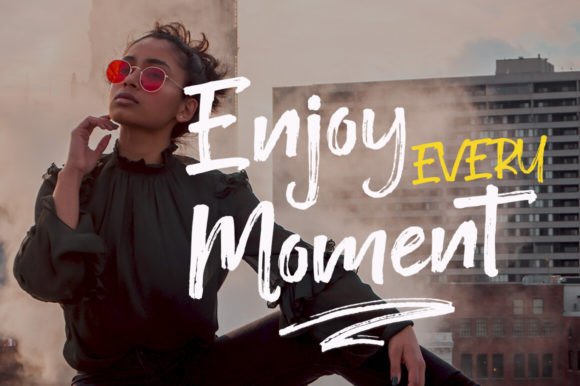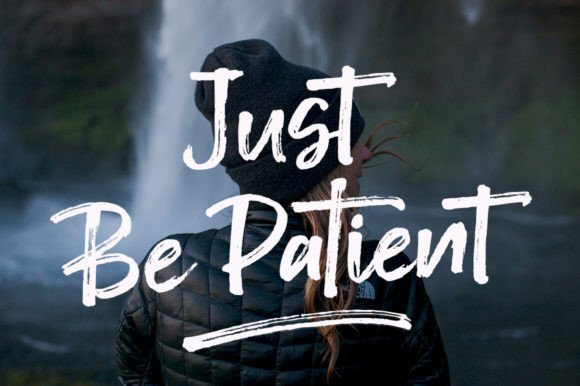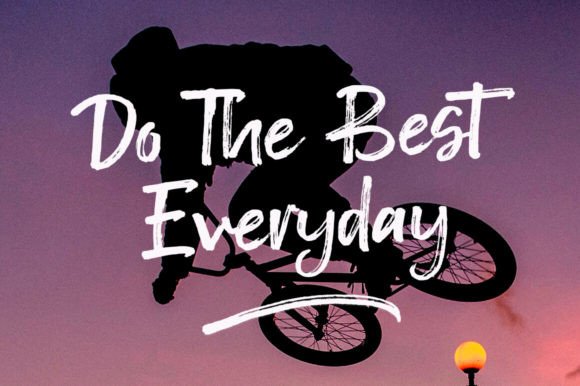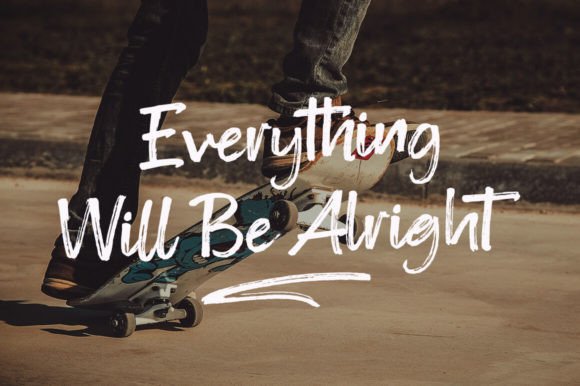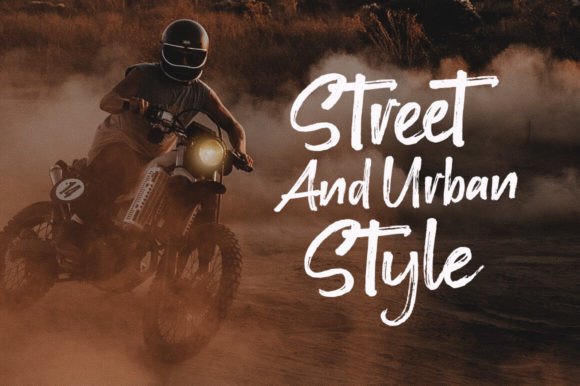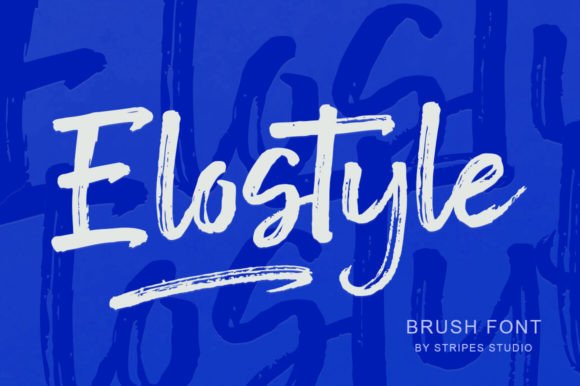
Discover the Charm of Elostyle Font: A Super Casual Hand Brushed Script
Are you a designer or crafter looking for a unique and eye-catching font to elevate your creative projects? Look no further than Elostyle Font, a super casual hand brushed script that is sure to capture the attention of your audience. With its detailed brush stroke texture, Elostyle Font is perfect for adding a personal touch to a wide range of applications, from titles and signatures to logos and wedding invitations.
What is Elostyle Font?
Elostyle Font is a carefully crafted hand brushed script that exudes a sense of casual elegance. Its super casual style makes it perfect for designers and crafters who want to add a touch of personality to their work. The font features a detailed brush stroke texture that gives it a unique, hand-crafted feel. This texture adds a level of depth and visual interest to your text, making it stand out from more traditional fonts.
Uses for Elostyle Font
One of the best things about Elostyle Font is its versatility. It can be used for a wide range of purposes, including:
- Titles and headings: Add a touch of elegance to your titles and headings with Elostyle Font’s casual, hand-brushed style.
- Signatures: Make your signatures stand out with Elostyle Font’s unique texture and style.
- Letterheads: Add a personal touch to your letterheads with this charming hand brushed script.
- Signage: Elostyle Font is perfect for signage, whether you’re creating a sign for a business, event, or personal project.
- Labels: Add a touch of personality to your labels with Elostyle Font’s casual, hand-brushed style.
- Newsletters: Make your newsletters stand out with Elostyle Font’s unique texture and style.
- Posters: Create eye-catching posters with Elostyle Font’s bold, hand-brushed style.
- Logos: Elostyle Font is perfect for creating unique and memorable logos for businesses or personal projects.
- Correspondence: Add a touch of elegance to your correspondence with Elostyle Font’s casual, hand-brushed style.
- Wedding invitations: Make your wedding invitations truly special with Elostyle Font’s charming, hand-brushed style.
- Badges: Create custom badges with Elostyle Font’s unique texture and style.
Why Choose Elostyle Font?
So why choose Elostyle Font for your next project? Here are just a few reasons:
- Unique style: Elostyle Font’s hand-brushed style and detailed texture make it truly one-of-a-kind.
- Versatility: Elostyle Font can be used for a wide range of purposes, from titles and signatures to logos and wedding invitations.
- High-quality: Elostyle Font is a high-quality font that is designed to produce crisp, clear text at any size.
Tips for Using Elostyle Font
Here are a few tips for getting the most out of Elostyle Font:
- Experiment with different sizes: Elostyle Font looks great at a wide range of sizes, from large titles to small labels.
- Pair with other fonts: Try pairing Elostyle Font with other fonts to create a unique and eye-catching look.
- Use for emphasis: Use Elostyle Font to add emphasis to certain words or phrases in your text.
Elostyle Font is a versatile and eye-catching hand brushed script that is perfect for designers and crafters looking to add a personal touch to their work. With its detailed brush stroke texture and super casual style, Elostyle Font is sure to capture the attention of your audience. Whether you’re creating titles, signatures, logos, or wedding invitations, Elostyle Font is a great choice. So why not give it a try and see the difference it can make in your next project?